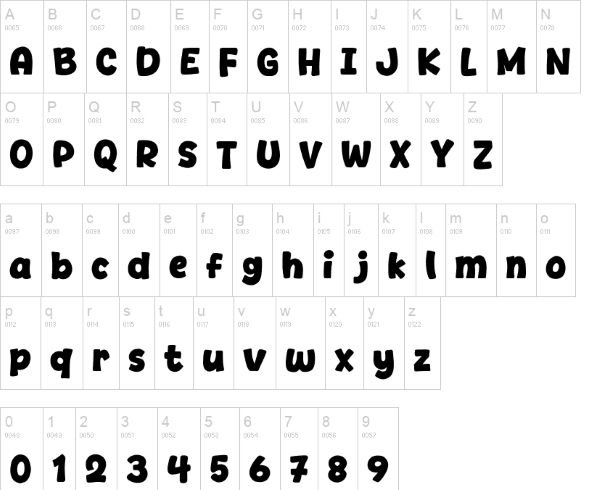
Melon Pop Font
Melon Pop Font is a modern, cute display typeface designed to bring fun and freshness to any design. With its playful shapes and cheerful personality, it’s perfect for posters, logos, magazines, book covers, banners, and more. Melon Pop adds a bright, happy, and eye-catching touch to every creative project.
➤ Font Name: Melon Pop
➤ Designer: Khurasan
➤ Style: Cartoon